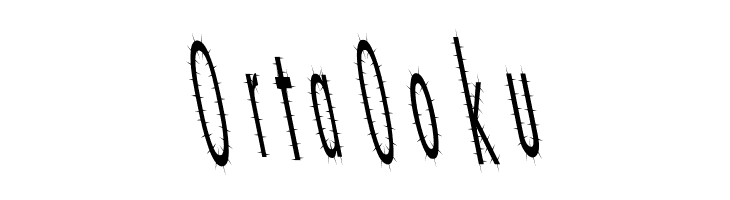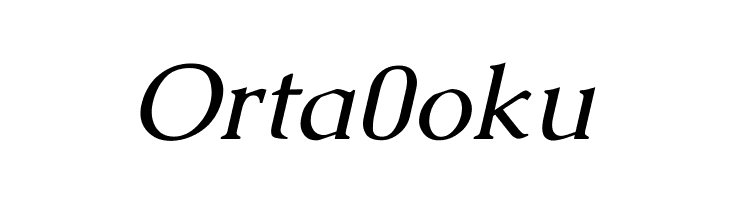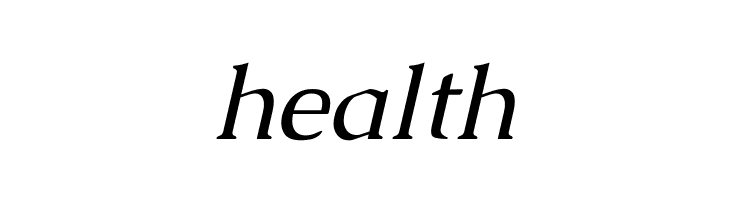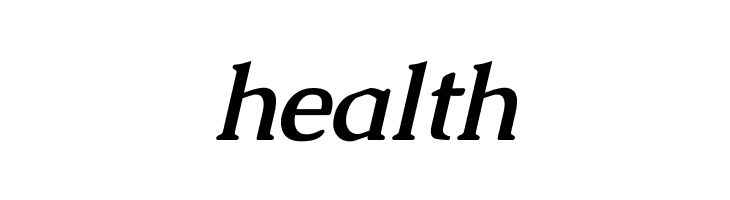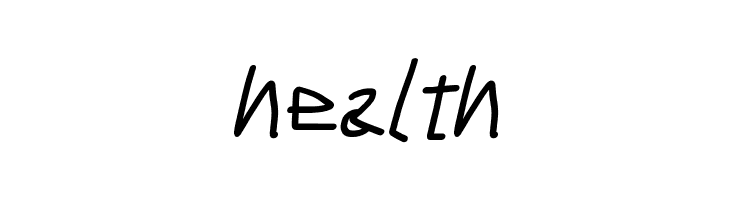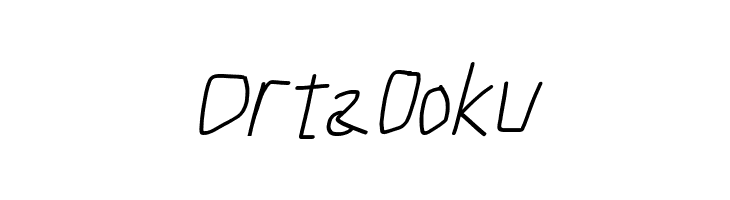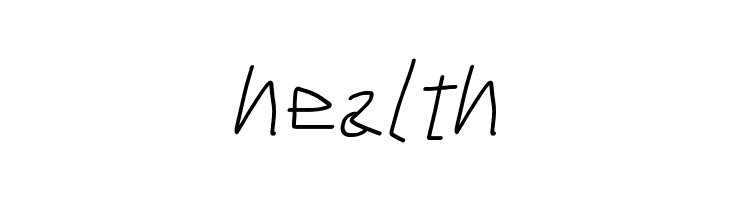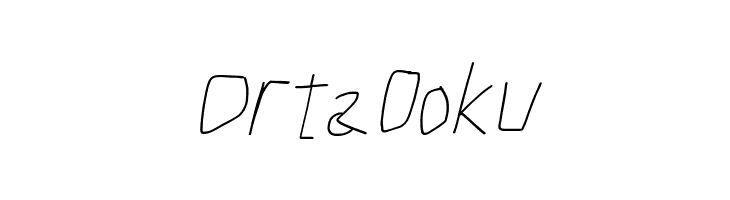
• Catilde Italic
A modern italic font with elegant curves and dynamic slant.
• Catilde-Italic
An elegant italic font with high contrast and flowing curves.
• CATProfessorKrauseFraktur-BoldI
A bold, gothic-style blackletter font with ornate, angular characters.
• CatScratch Thin Rev Italic
• Cattya Brown Italic
A graceful, high-contrast script font with a flowing, italicized style.
• Caudex Bold Italic
A bold, italic serif font with a classic and elegant style.
• Caudex Italic
Elegant serif font with a classic italic style and moderate contrast.
• Caveman Bold Italic
A bold, italicized font with a hand-drawn, primitive aesthetic.
• Caveman Italic
A rugged, hand-drawn italic font with primitive, angular strokes.
• Caveman Light Italic
A playful, hand-drawn font with irregular, angular strokes and a primitive aesthetic.